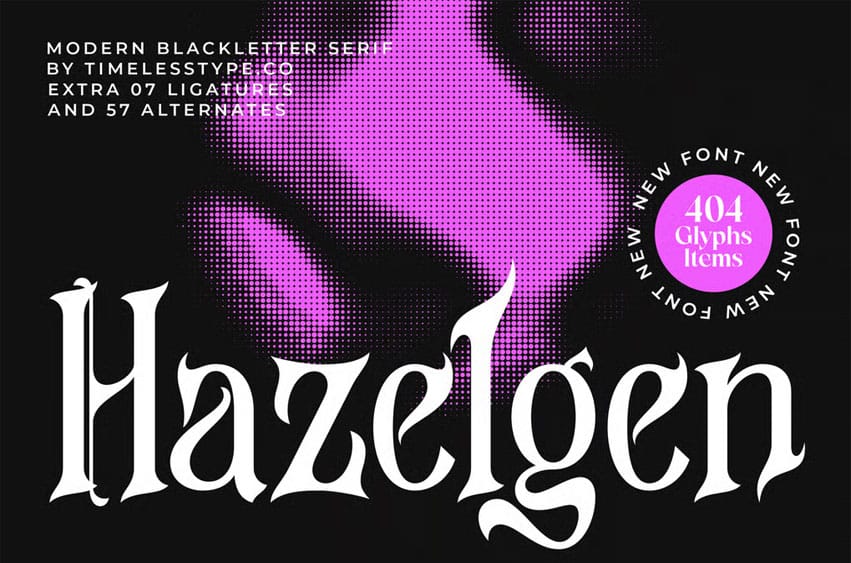
Hazelgen Font is a modern blackletter serif crafted with sharp gothic contours, fluid ornamental curves, and a bold contemporary presence, blending traditional calligraphic structure with a clean, high-impact editorial look.
With 404 glyphs, 7 ligatures, and 57 alternates, this typeface offers extensive flexibility for branding, album covers, fashion posters, luxury packaging, and striking visual identities seeking a dramatic yet refined typographic personality. Its expressive strokes and sculpted edges make Hazelgen perfect for designers wanting a modern gothic aesthetic that feels artistic, premium, and inherently iconic.